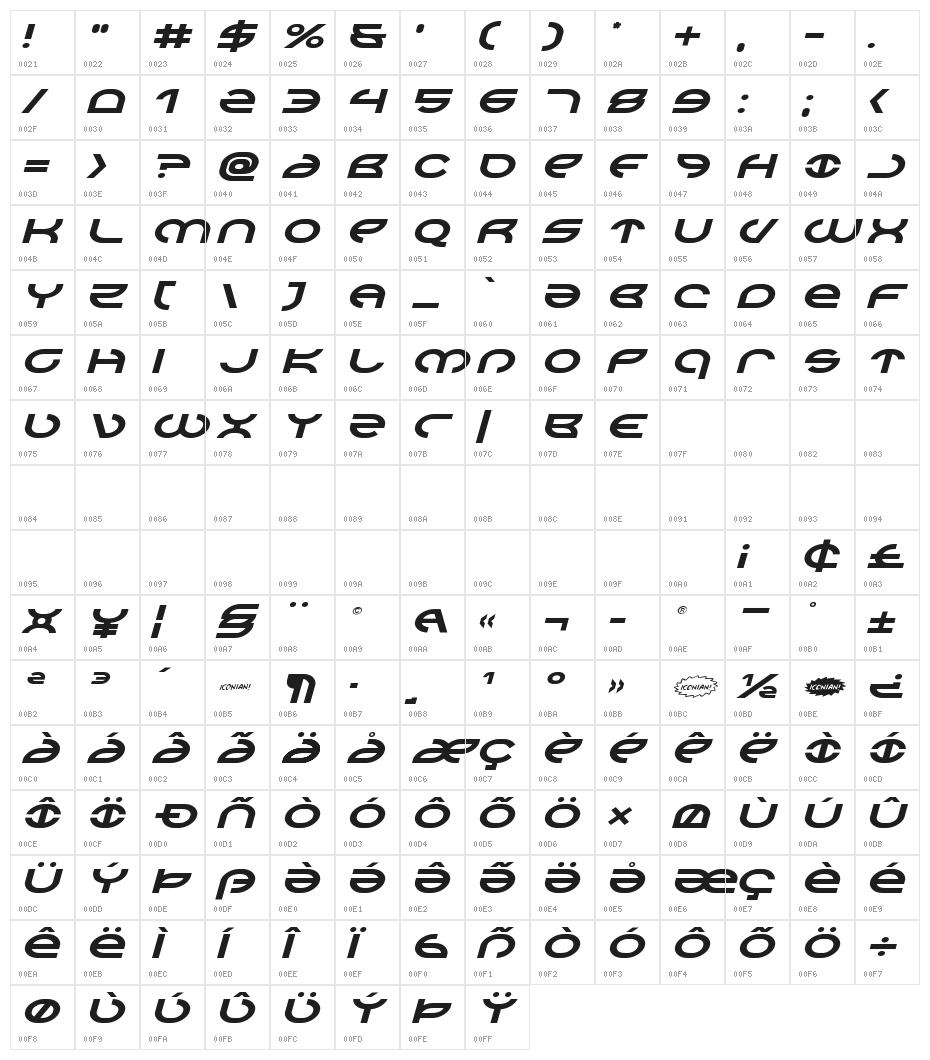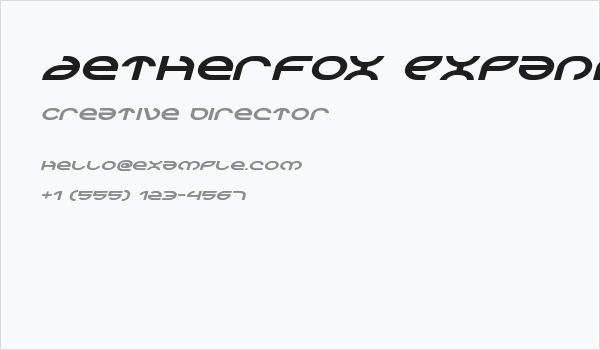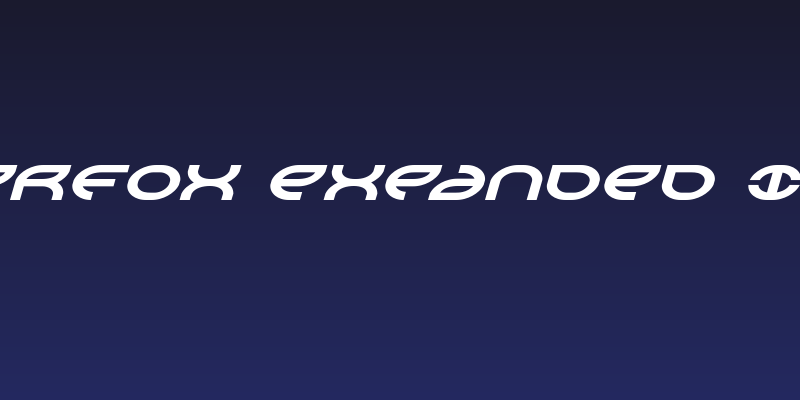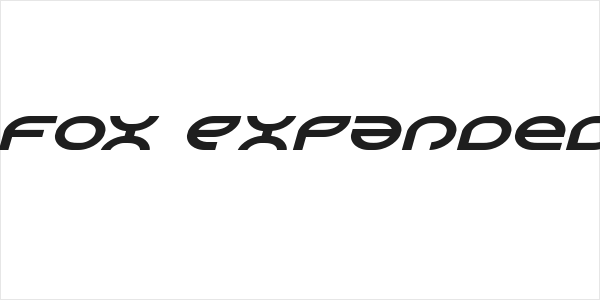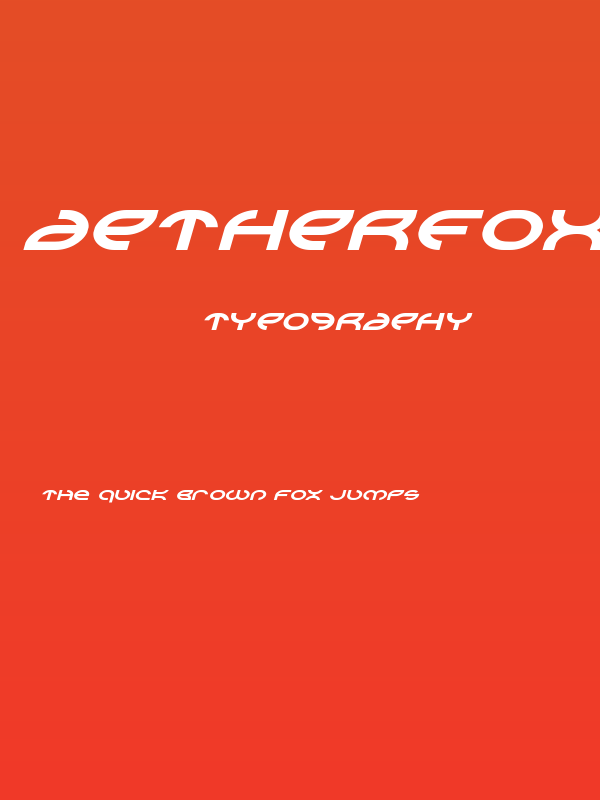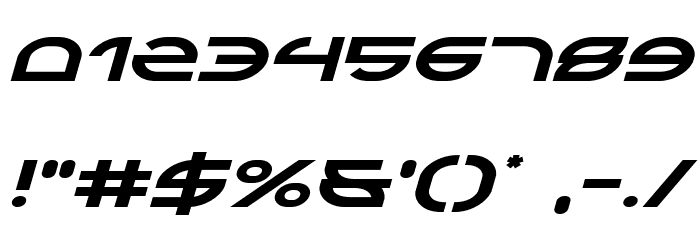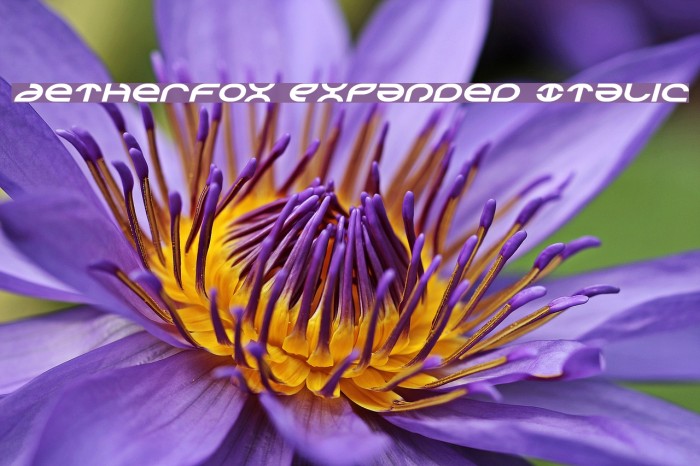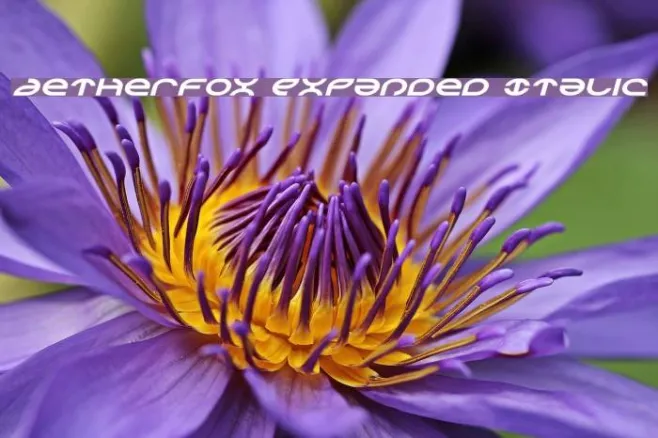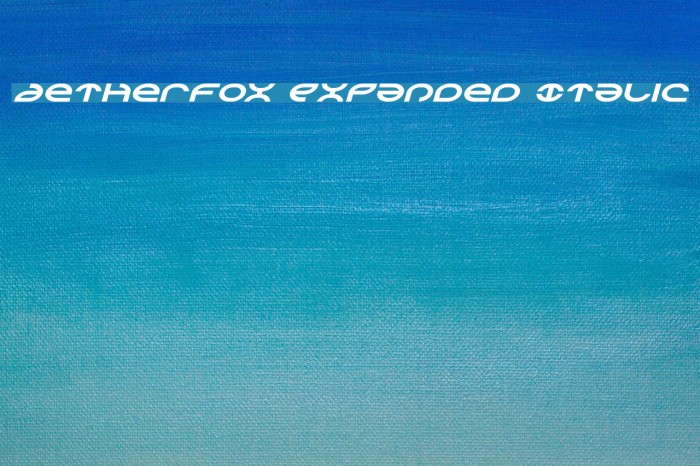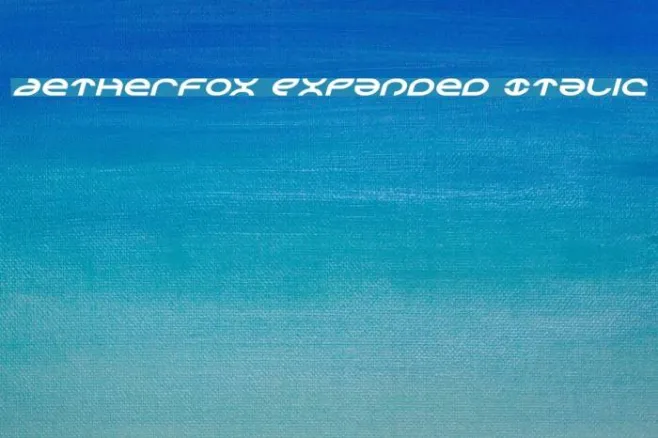
Aetherfox Expanded Italic Font
Aetherfox Expanded Italic Description
This font features a futuristic and dynamic design, characterized by its expanded and italicized form. The letters have a sleek, aerodynamic appearance, with smooth curves and sharp angles that create a sense of motion and speed. The uppercase and lowercase letters maintain a consistent style, with a unique flair that distinguishes each character. Numbers and special characters are designed to match the overall aesthetic, providing a cohesive look across all glyphs. The font's modern and innovative style makes it suitable for projects that require a cutting-edge and bold visual impact.